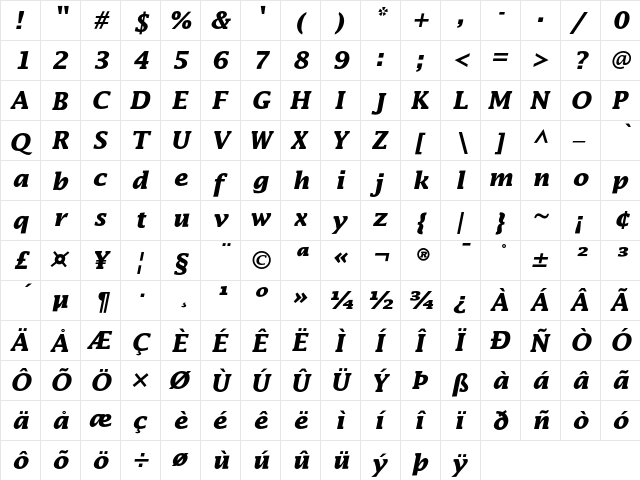
Lucida Bold Italic
Design Context for Lucida Typeface
Lucida offers clean, dependable letterforms without strong stylistic allegiance, making it a practical choice for designers who need flexibility. Its italic angle brings a sense of urgency and motion to the letterforms. Its bold stroke weight gives it real presence on the page.
Pro Tip: Try Lucida for annotation and caption copy alongside an upright companion — the contrast in angle creates a dynamic but ordered typographic system.